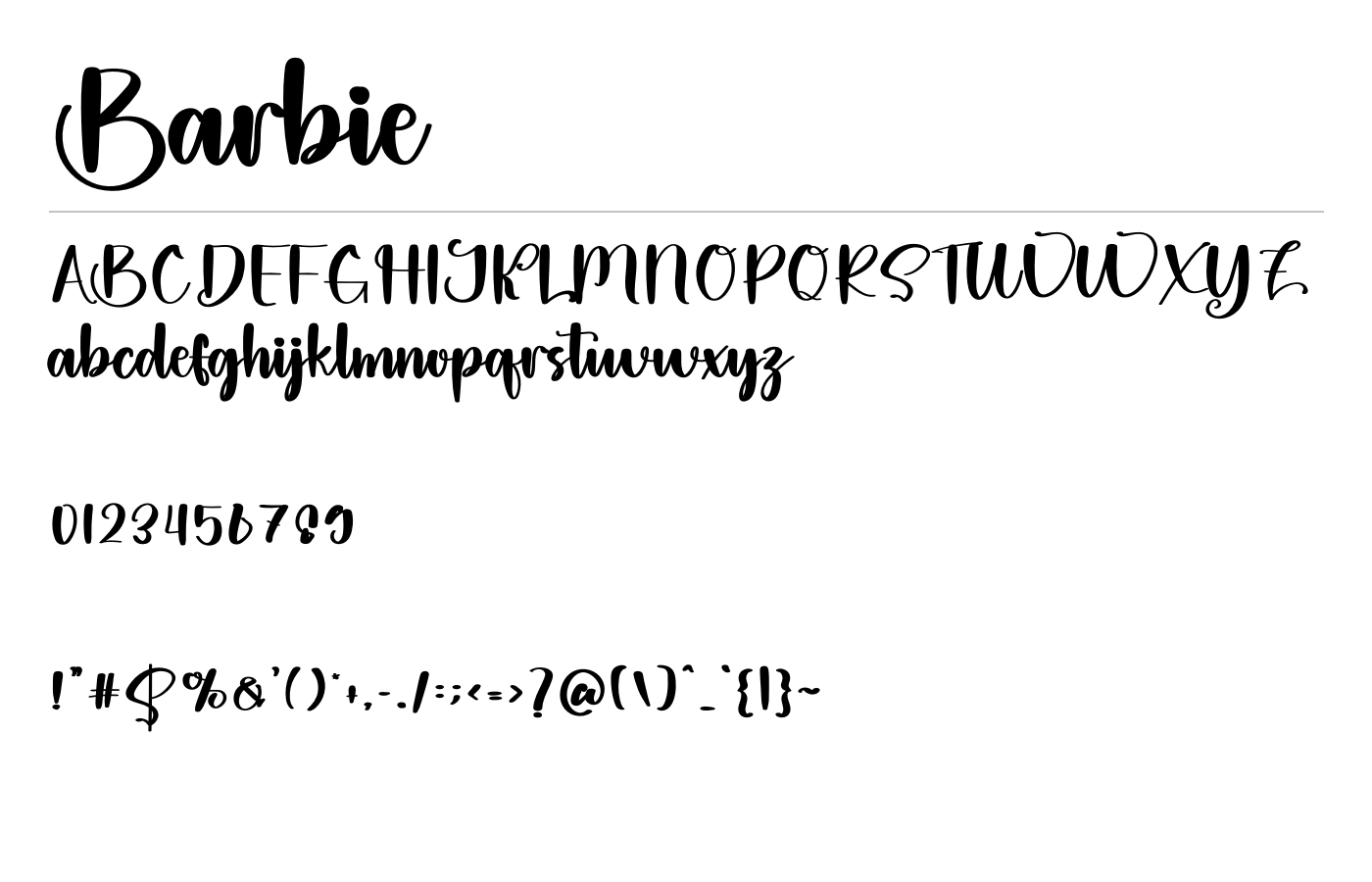
Barbie Font is a playful and elegant script typeface featuring smooth, rounded strokes with a friendly, hand-drawn feel. Its lively letterforms, including distinctive swashes and curls, make it perfect for branding, invitations, and creative projects that require a youthful, charming personality. This font works well in headlines and logos where a personal, stylish touch is desired.
Barbie Font
About Barbie Font